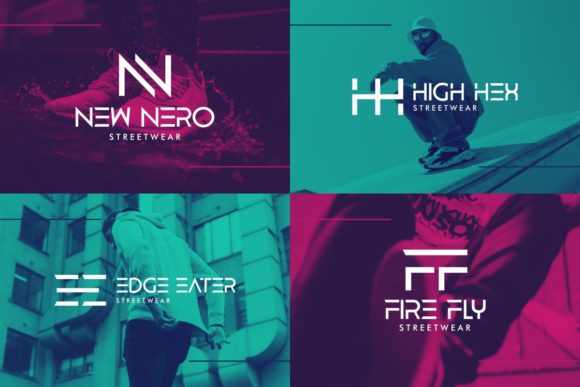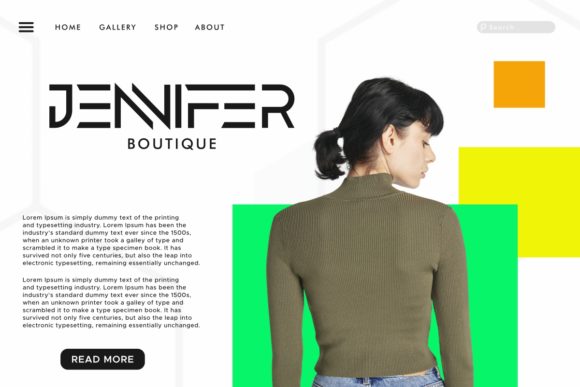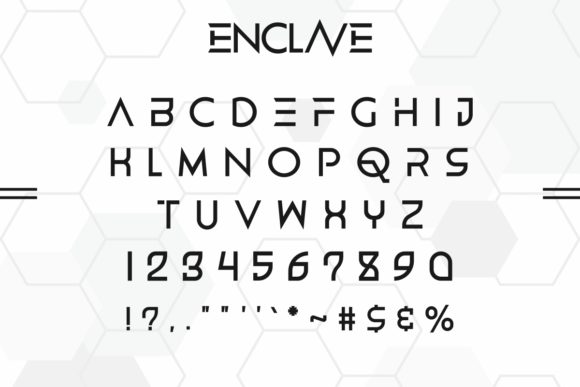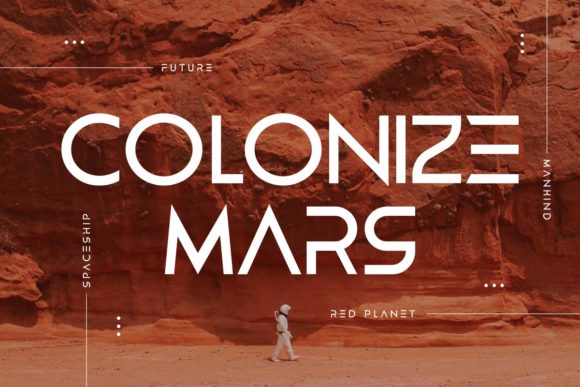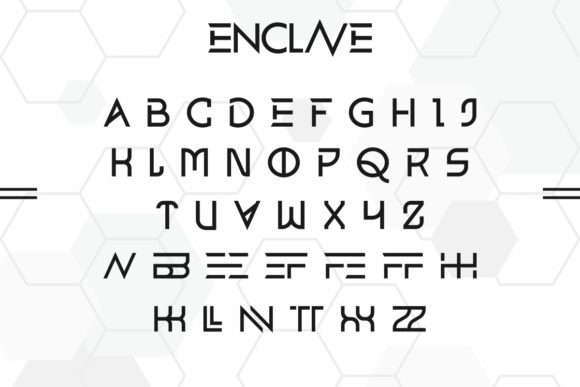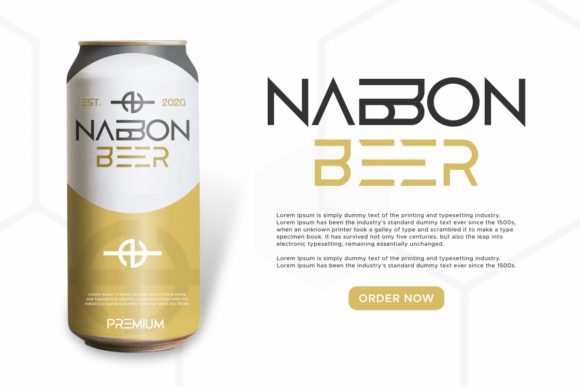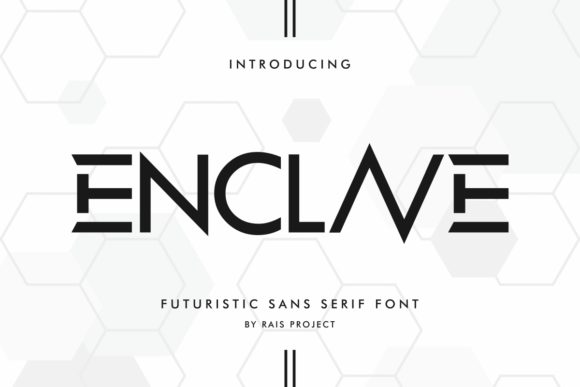
Discover the Futuristic Charm of Enclave Font
In the realm of typography, fonts play a pivotal role in defining the aesthetic and tone of any design project. Whether you’re a seasoned designer or a crafting enthusiast, the right font can elevate your work from ordinary to extraordinary. If you’re on the hunt for a typeface that exudes a cool, futuristic vibe, look no further than the Enclave Font. This sans serif font is not only visually striking but also incredibly versatile, making it an excellent choice for a wide range of applications, from web designs and business cards to creative projects that demand a unique touch.
The Essence of Enclave Font
Enclave Font is characterized by its clean, modern sans serif design. The lack of serifs gives it a sleek and streamlined appearance, perfect for designs that require a contemporary edge. The font’s futuristic feel stems from its precise lines and geometric shapes, which contribute to its forward-thinking aesthetic. This makes Enclave an excellent choice for projects that aim to convey innovation, technology, or a progressive mindset.
One of the standout features of Enclave Font is its versatility. Its clear and legible design ensures that it can be used effectively across various mediums and sizes, from large headings to smaller body text. This adaptability makes it a favorite among designers who need a reliable font that can perform well in different contexts. Whether you’re designing a website, a logo, or a marketing material, Enclave Font can add a professional and modern flair to your work.
Ideal for Digital and Print Projects
In today’s digital age, having a font that looks great both on screen and in print is essential. Enclave Font meets this criterion with ease. Its digital-friendly design ensures that it remains crisp and clear on digital devices, while its print-friendly qualities make it suitable for high-quality print materials. This dual capability is particularly beneficial for designers who work across multiple platforms or for businesses that maintain both an online and offline presence.
Enhancing Your Designs with Enclave
Using Enclave Font in your designs can significantly enhance their visual appeal and impact. Here are a few ways you can leverage this fantastic font:
• Web Design: Use Enclave for headings, titles, and even body text to give your website a modern and cohesive look.
• Business Cards: Stand out with a business card that features a bold, futuristic typeface.
• Branding: Incorporate Enclave into your brand’s typography to convey a sense of innovation and forward-thinking.
• Creative Projects: Whether you’re working on posters, flyers, or any other creative project, Enclave can add a unique and stylish touch.
Tips for Using Enclave Font Effectively
To get the most out of Enclave Font, consider the following tips:
• Experiment with Sizes: Play around with different font sizes to create visual hierarchy and emphasis.
• Combine with Other Fonts: Pair Enclave with complementary fonts to add depth and interest to your designs.
• Utilize Color: Take advantage of Enclave’s versatility by using it in various colors to match or contrast with your design’s palette.
Enclave Font is a powerful tool for designers and crafters looking to infuse their projects with a cool, futuristic aesthetic. Its sleek sans serif design, versatility, and adaptability make it an excellent choice for a wide range of applications. By incorporating Enclave into your design repertoire, you can create visually striking and effective designs that stand out in both digital and print formats. So, why settle for ordinary when you can make a statement with the futuristic charm of Enclave Font?